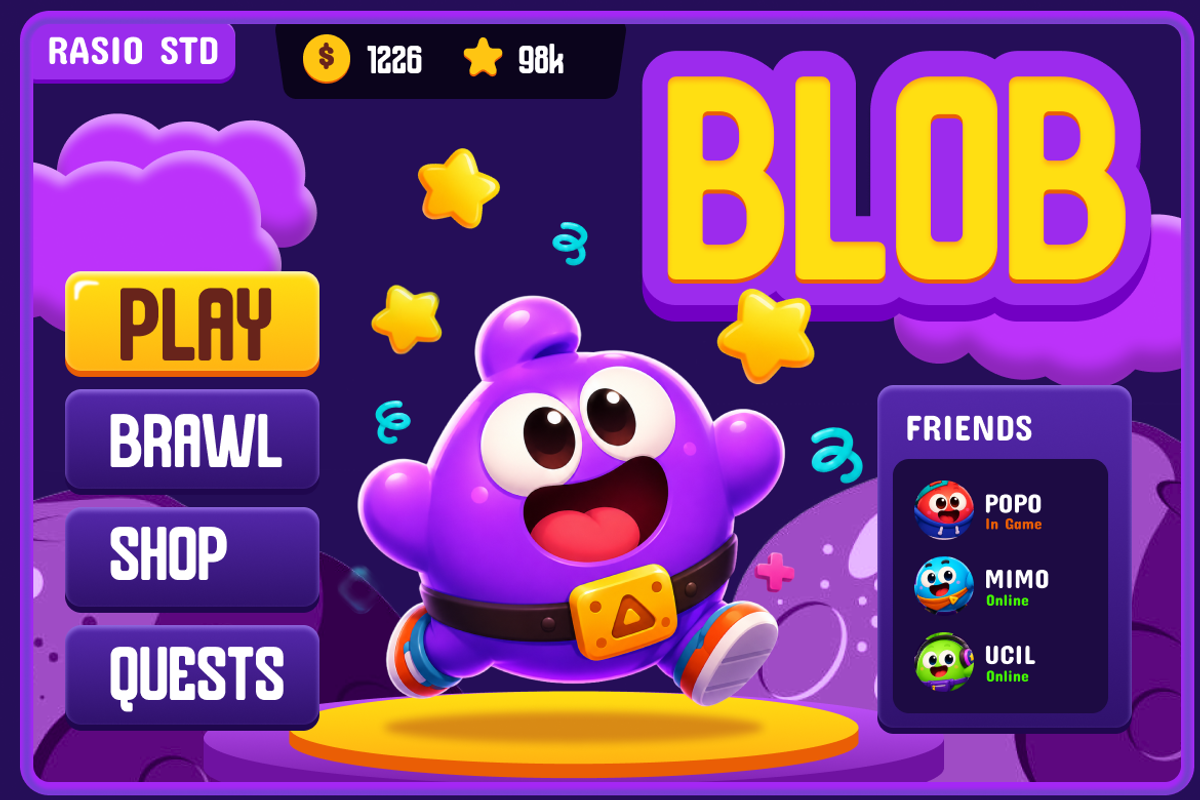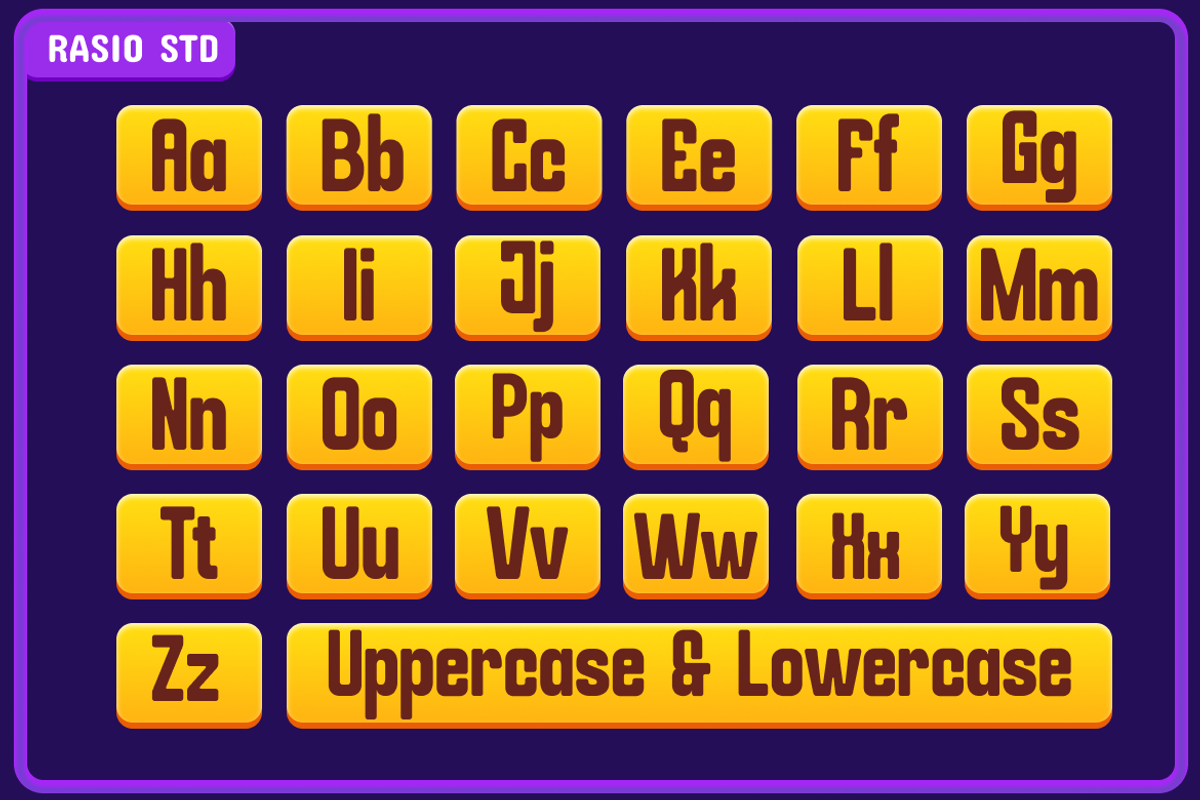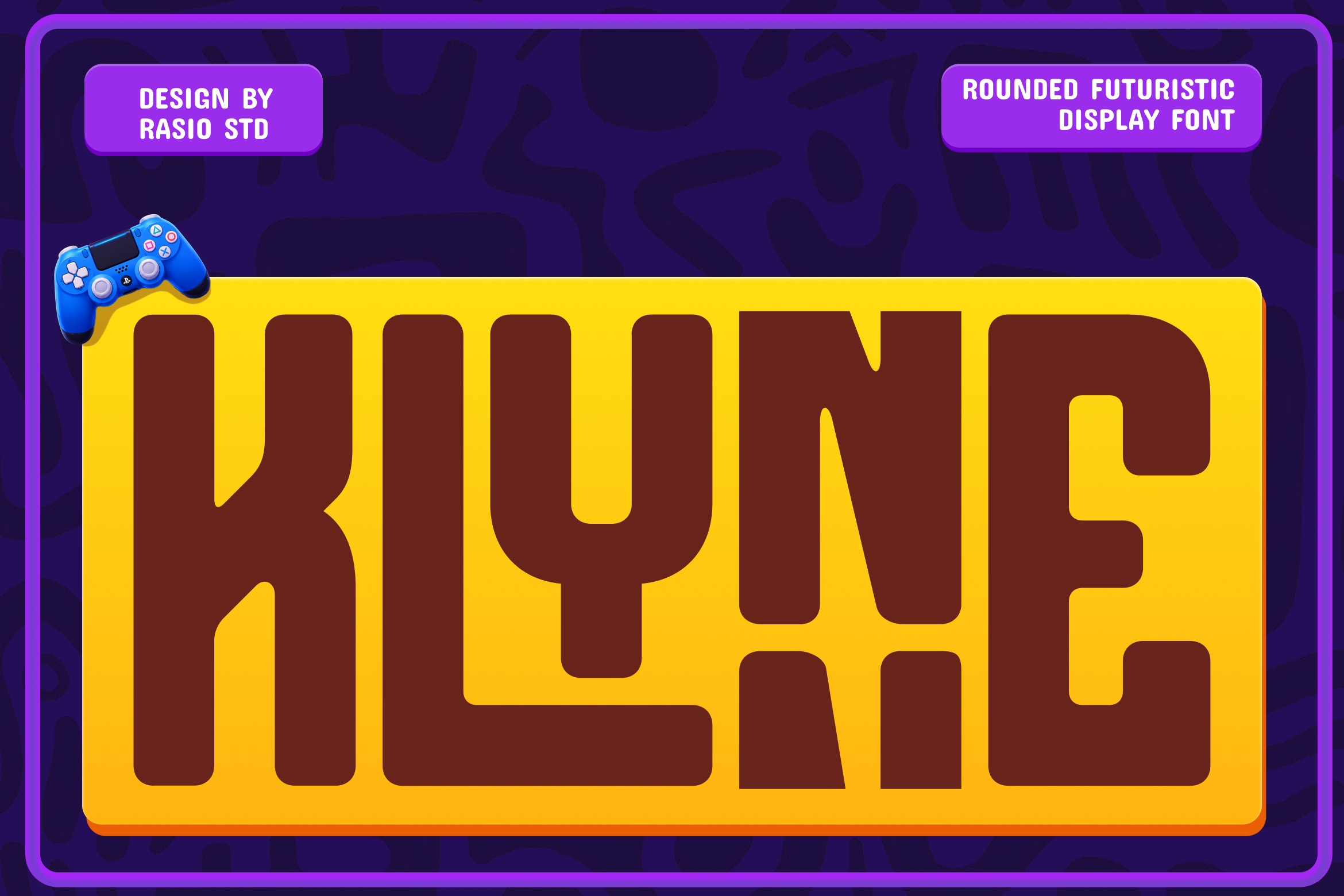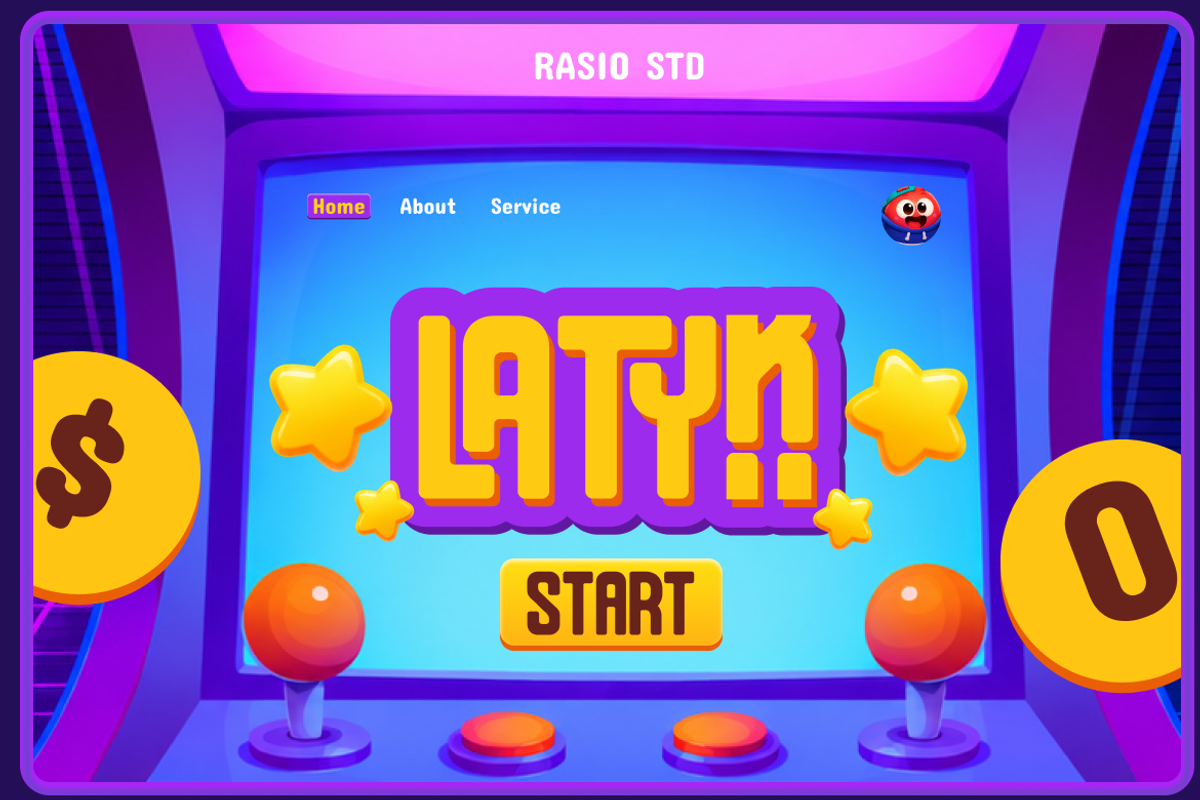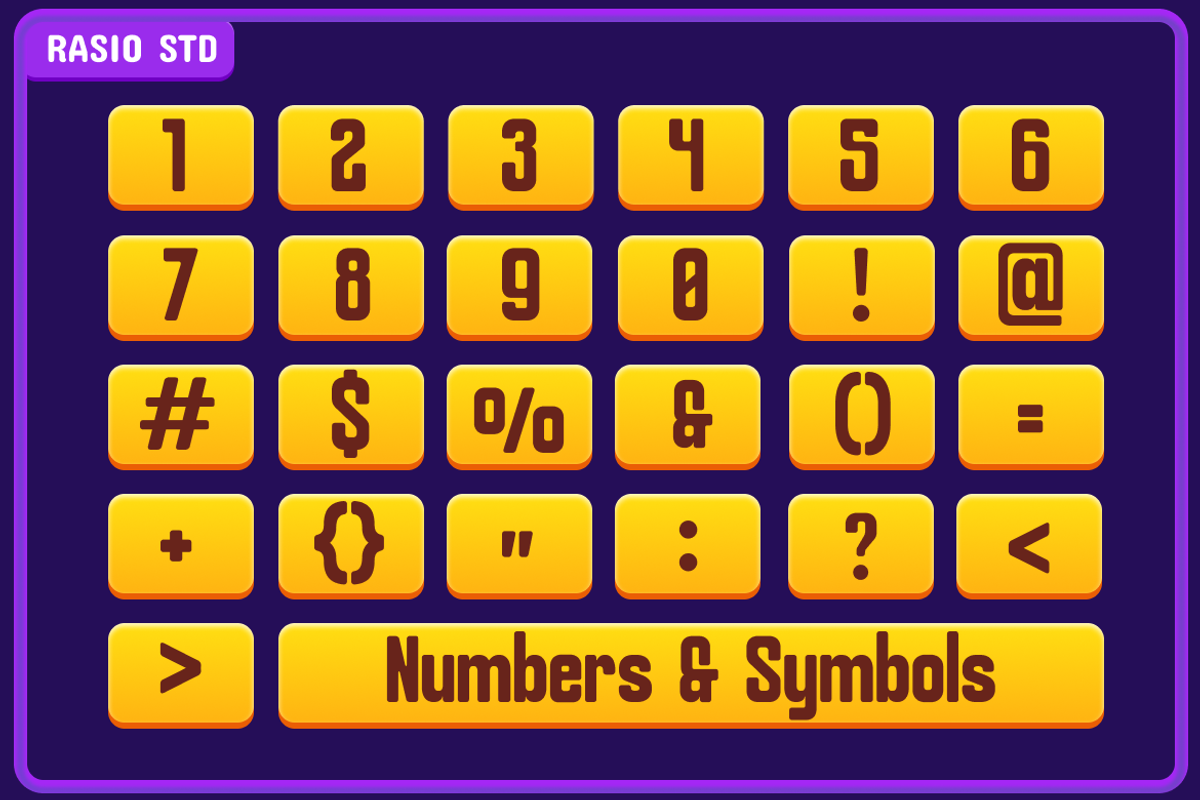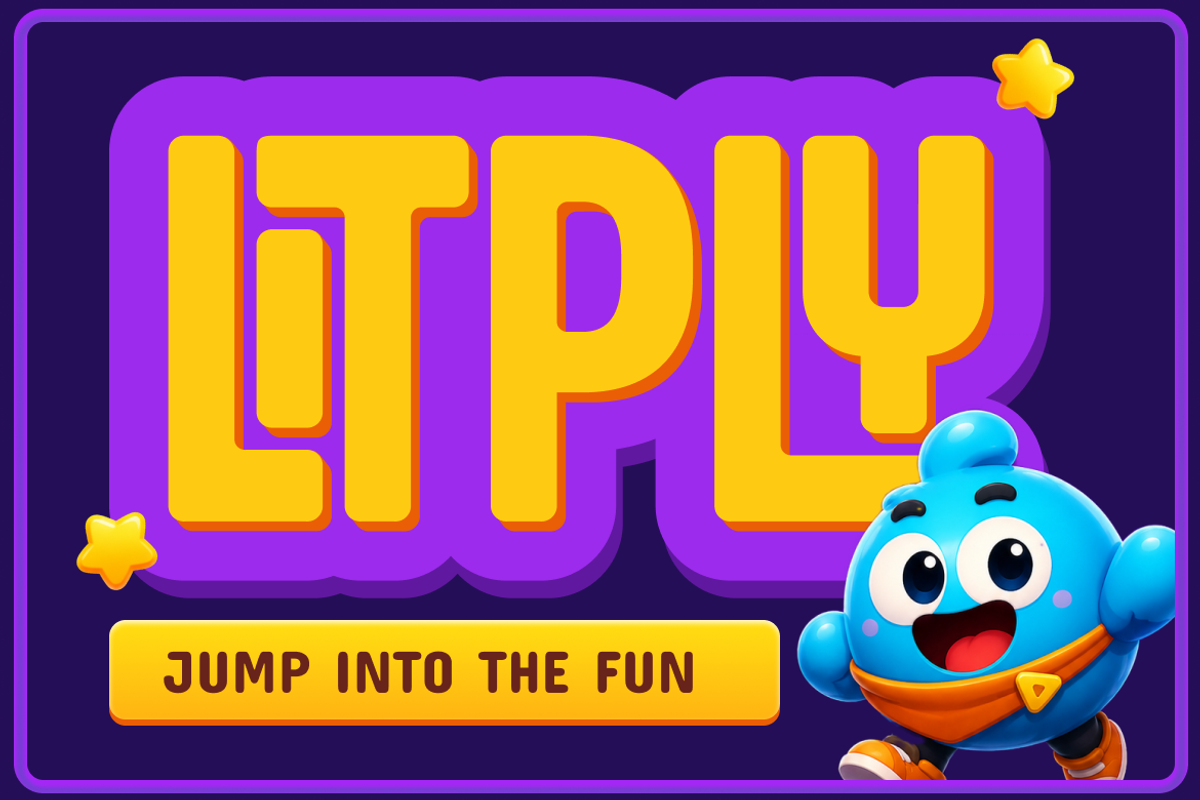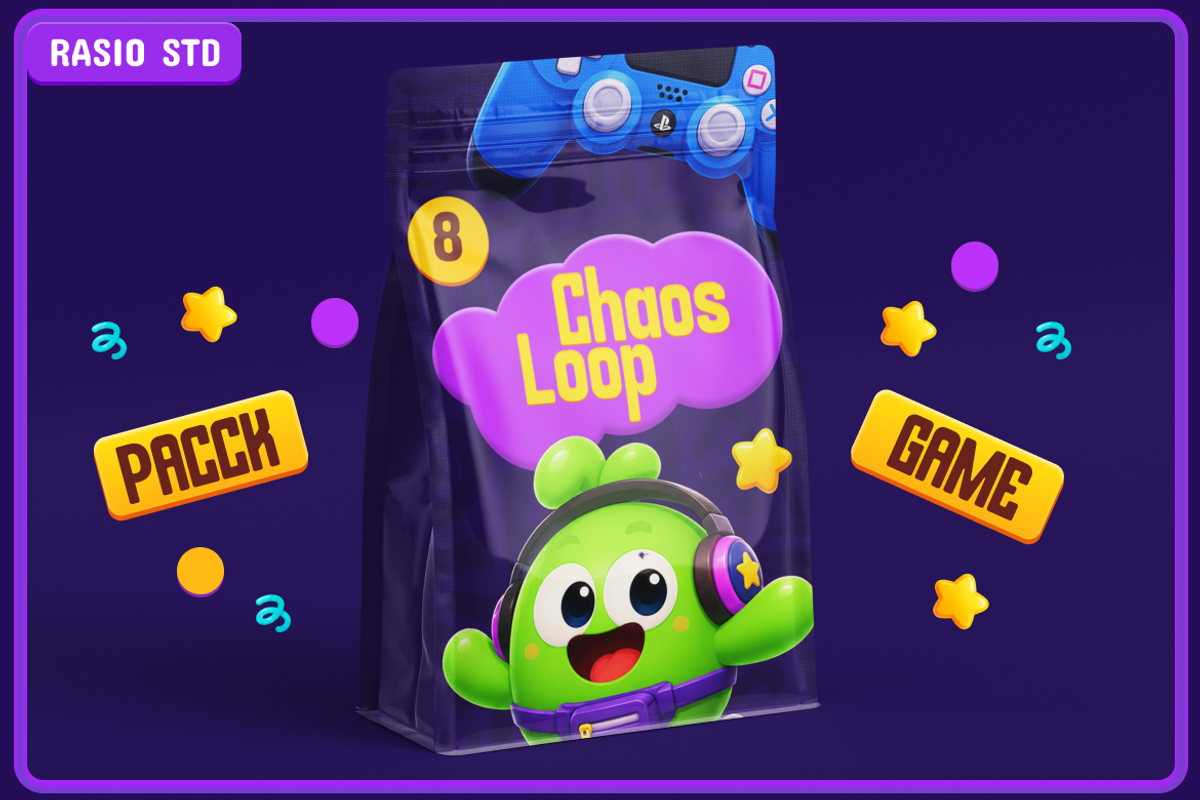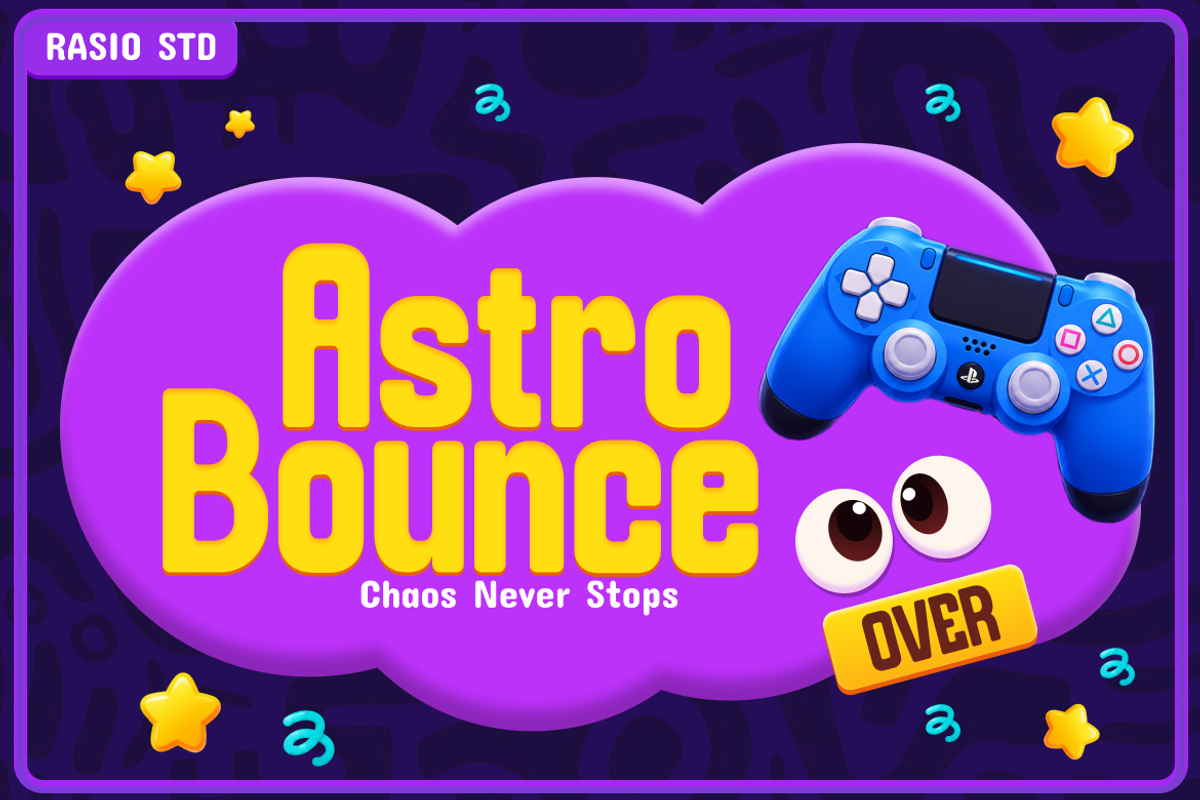
Klyne Rounded Futuristic Font
Klyne is a bold rounded futuristic display font featuring thick geometric forms, smooth corners, and playful retro-tech styling. The typeface includes uppercase, lowercase, numerals, punctuation. Its chunky structure and arcade-inspired character shapes create a fun gaming atmosphere while maintaining strong readability for headlines and display typography. Perfect for modern digital branding, gaming visuals, posters, stream graphics, and energetic creative projects that need a bold futuristic personality.
Relevance & Use Cases is highly relevant for gaming content, esports branding, arcade-style posters, stream overlays, YouTube thumbnails, toy packaging, children’s branding, and futuristic digital campaigns. Its rounded bold appearance works perfectly for projects that need a playful, energetic, and highly visible typographic style.
Bold rounded display structure with playful futuristic styling
Thick geometric letterforms for strong visual impact
Soft curved corners creating a friendly gaming aesthetic
Compact spacing designed for eye-catching headlines
Retro arcade-inspired shapes with modern digital character
Gaming logos and esports branding with bold futuristic energy
Stream overlays and YouTube thumbnail designs
Mobile game interfaces and arcade-inspired visuals
Toy packaging and playful product branding
Social media graphics and digital campaign promotions
Screen-optimized kerning for responsive web design
Supports numerals, punctuation, and extensive symbol set
Power up your design with Klyne and bring bold futuristic energy to every headline